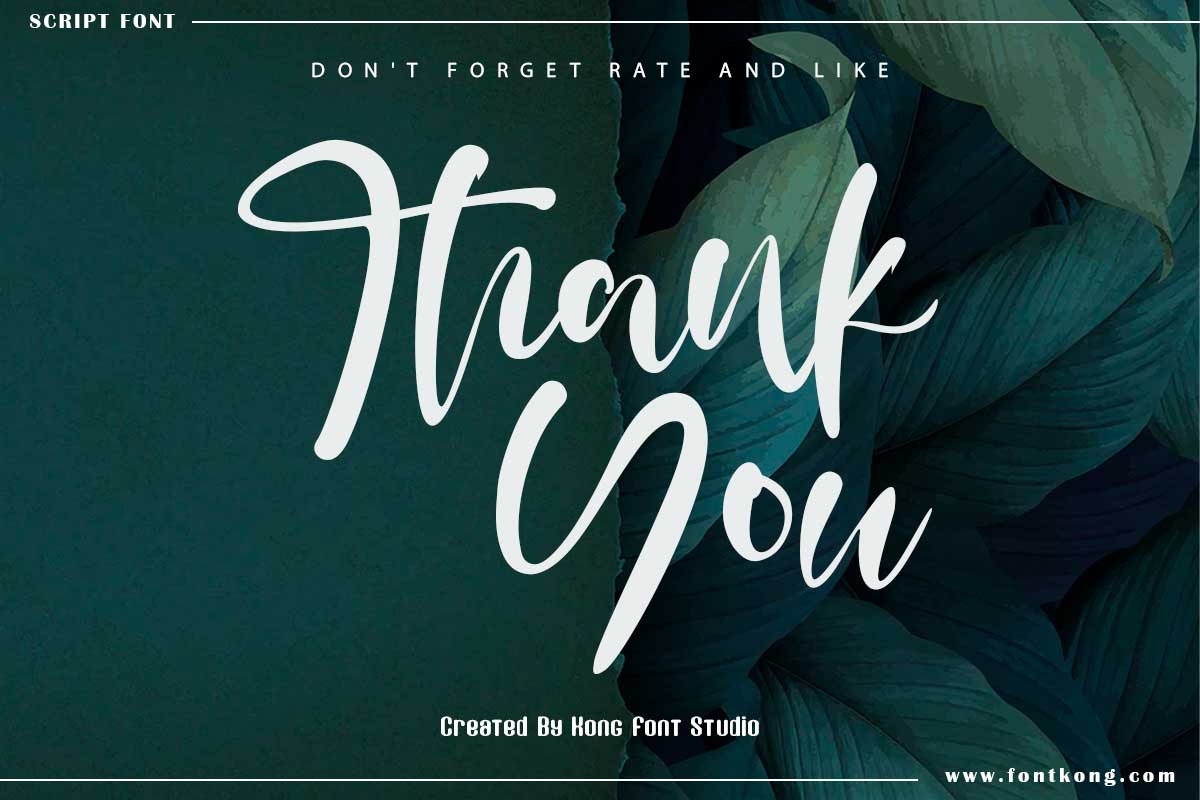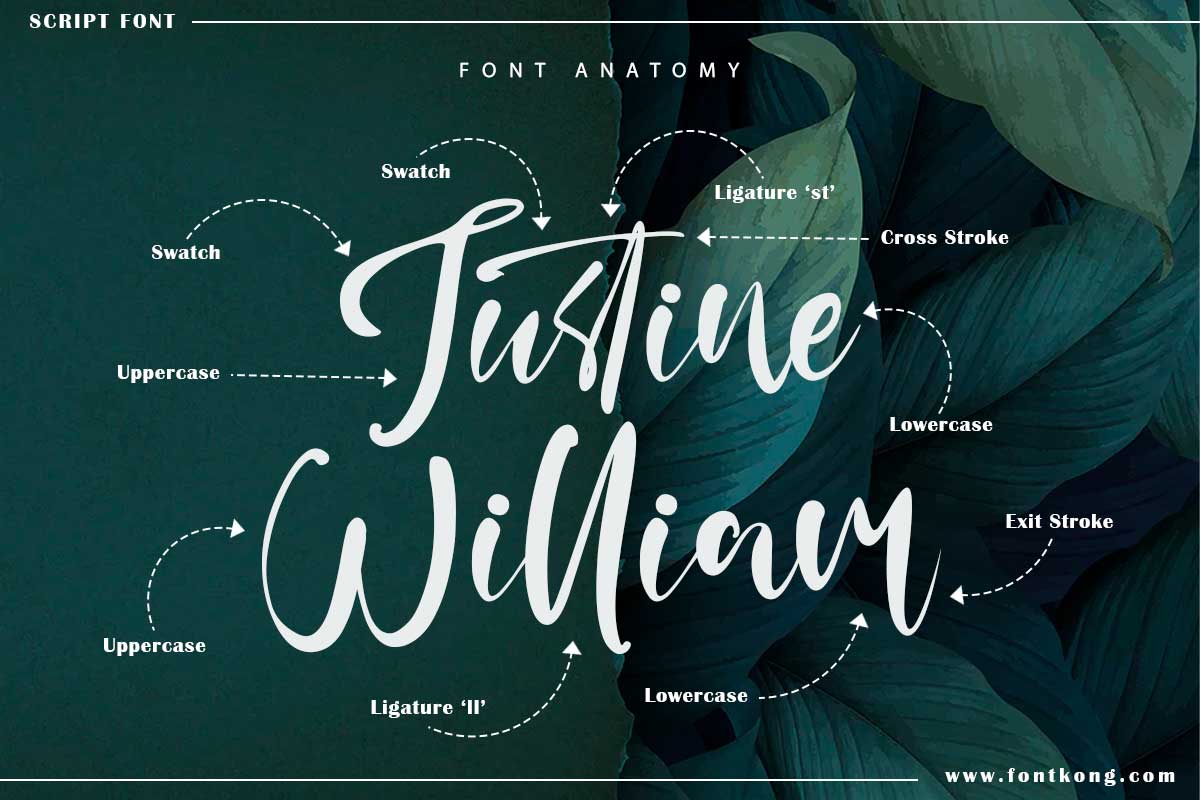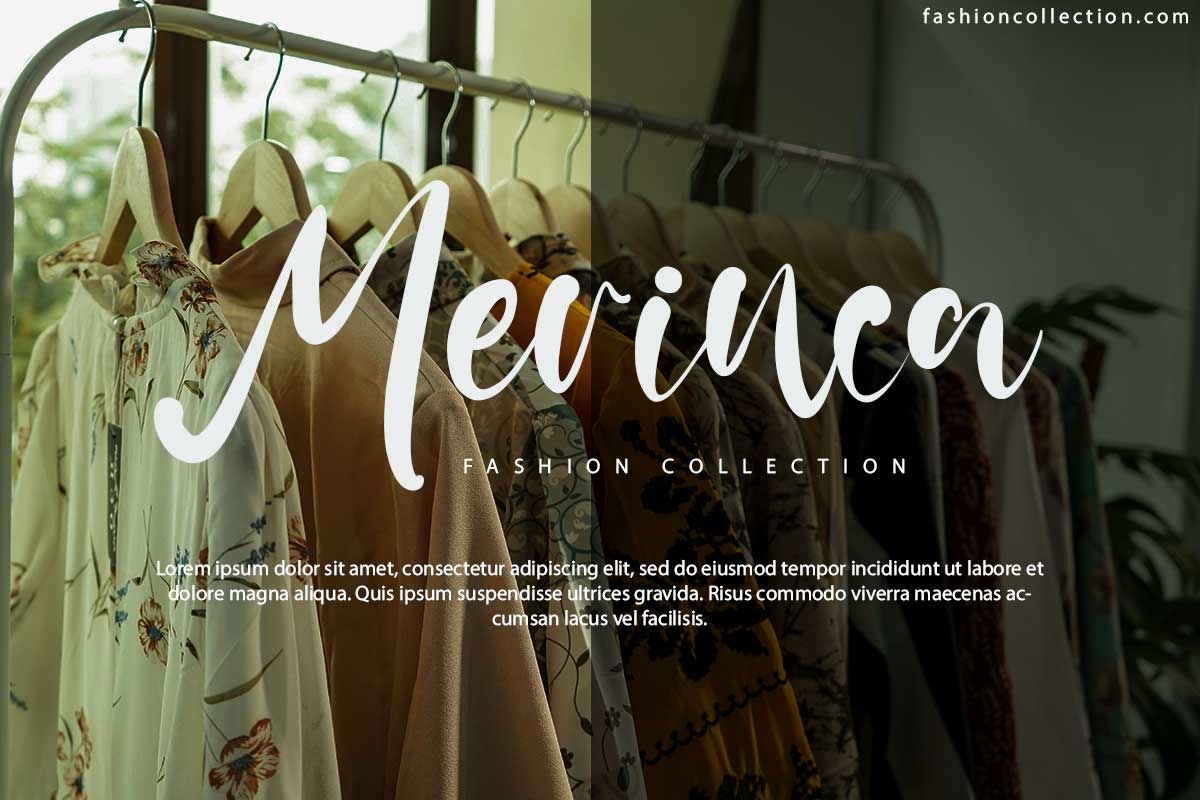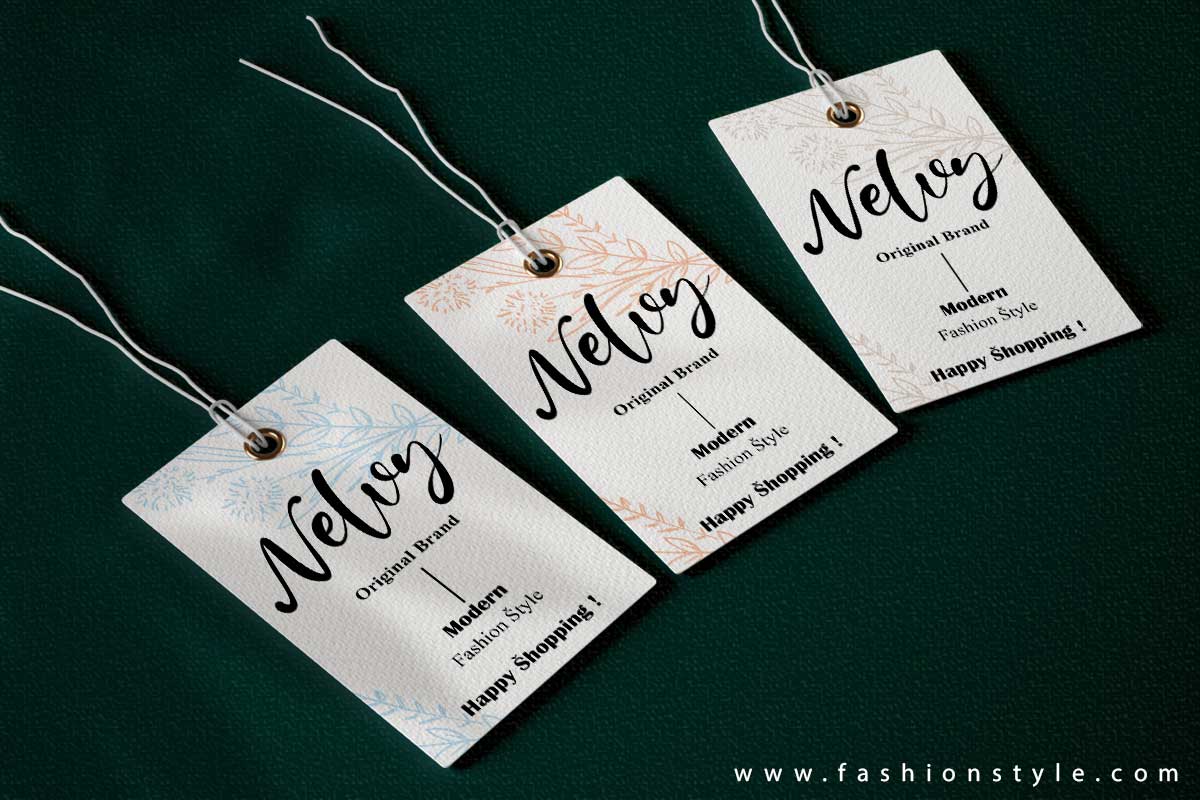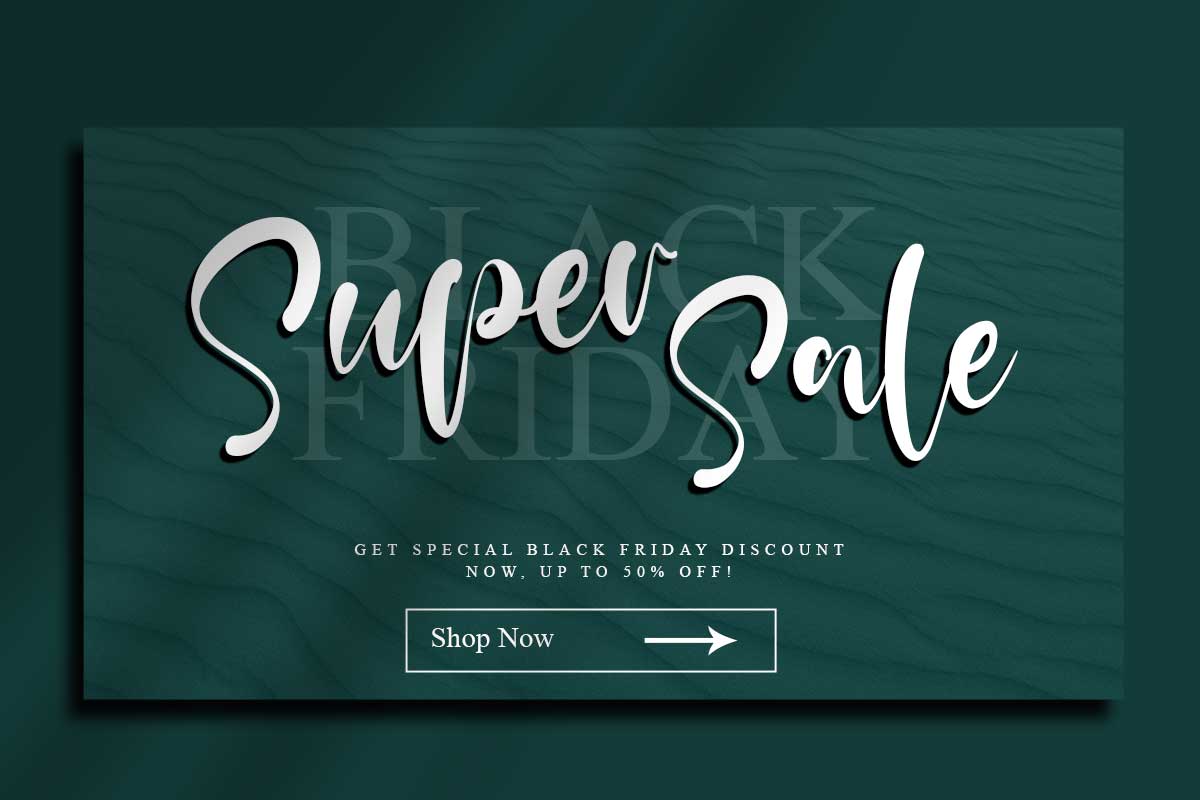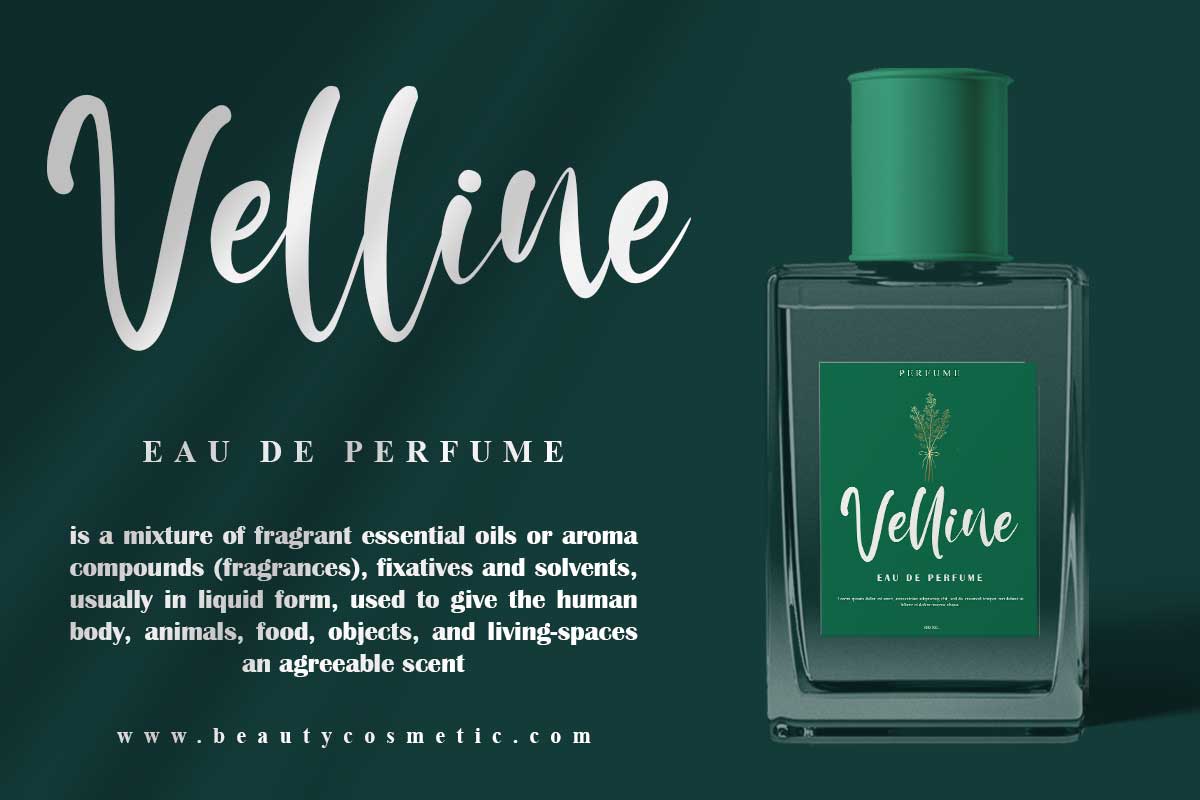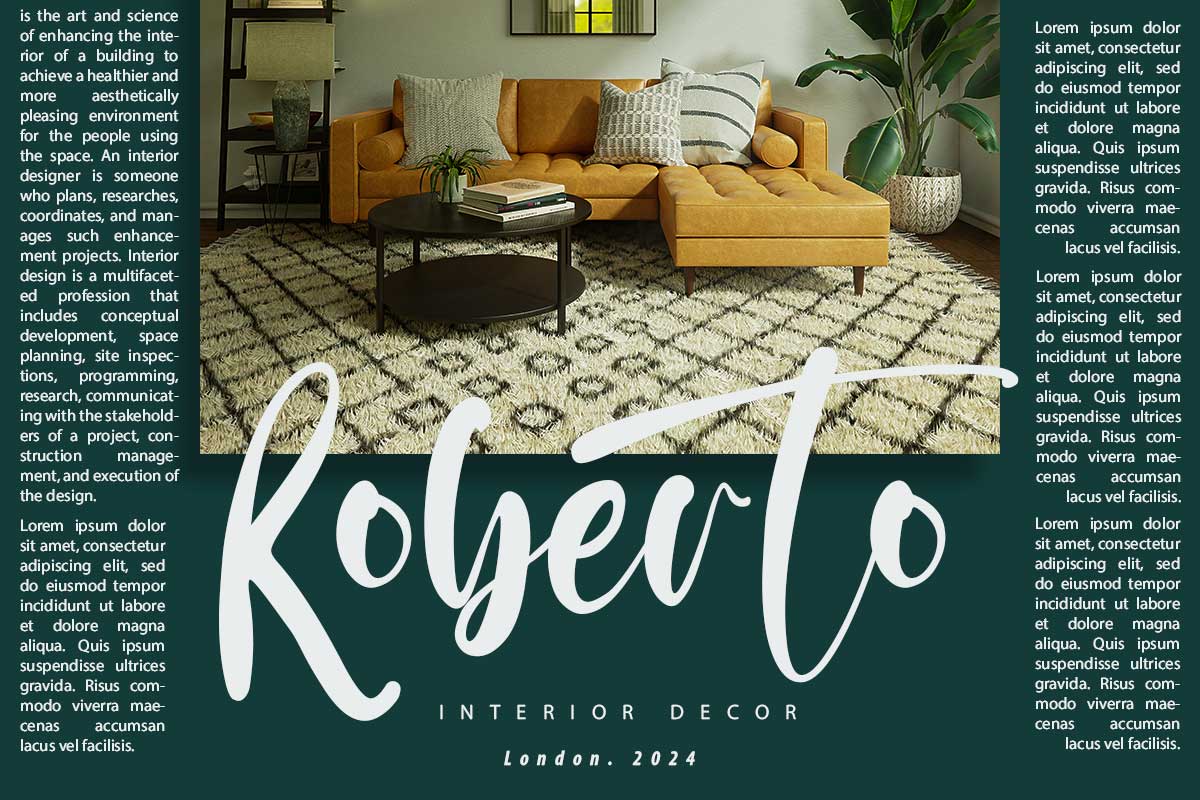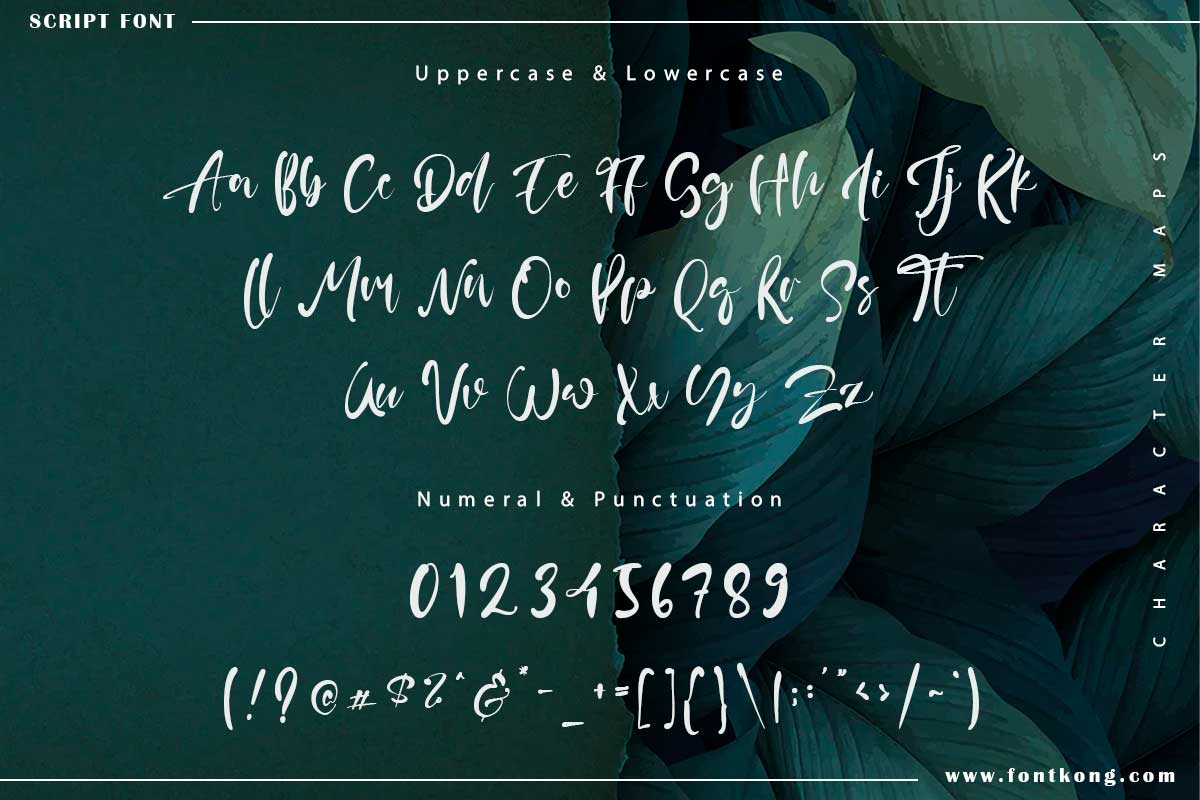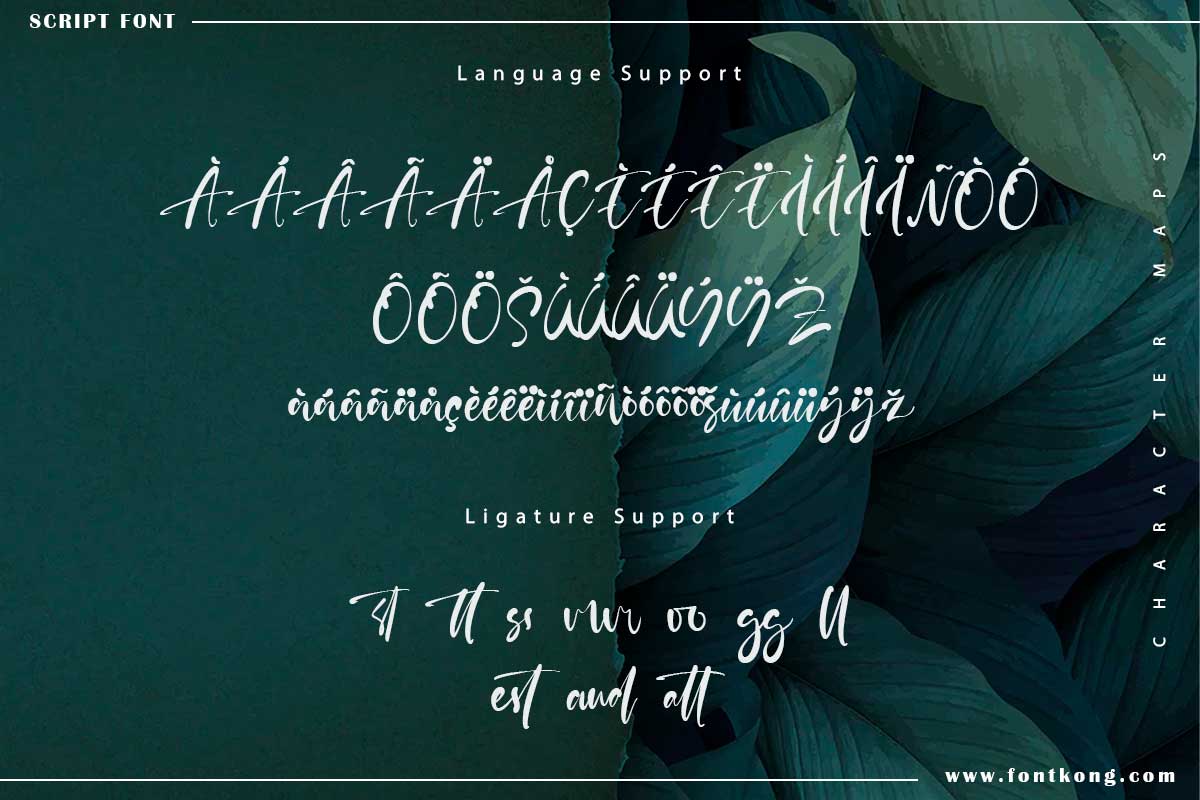
Gloria Martin Calligraphy Script Font Script & Signature Font provides a wide selection of font types that have interesting characteristics. This time, Gloria Martin Calligraphy Script Font is here as one of the best choices among other fonts. This font is a monoline script in bold font. Some of the letters are written in series and look beautiful. Gloria Martin Calligraphy Script Font is an eligible font. This font type does not apply to prints that are too large or too small because it will reduce readability. It must be used with the appropriate font size so that it can give the maximum attractive impression. Gloria Martin Calligraphy Script Font can be applied to several things, such as product branding. It can use as brand tags, promotional posters, and shop signage. This font can use digitally when you want to promote products on social media. Apart from products, this font can use to promote a service, such as photography. Gloria Martin Calligraphy Script Font is one of the best fonts for quotes that contain motivation and encouragement. The beautiful shape of the letters will be good when combined with the appropriate ornaments and colors. Our collection of script & signature fonts is compatible with Figma Fonts, Canva Fonts, Freepik Fonts, and Adobe Fonts. They also work as Windows and Apple Fonts. For your social media needs, you can use and install fonts in our Script & Signature font collection to use as Instagram Fonts, Facebook Fonts, and Twitter Fonts.